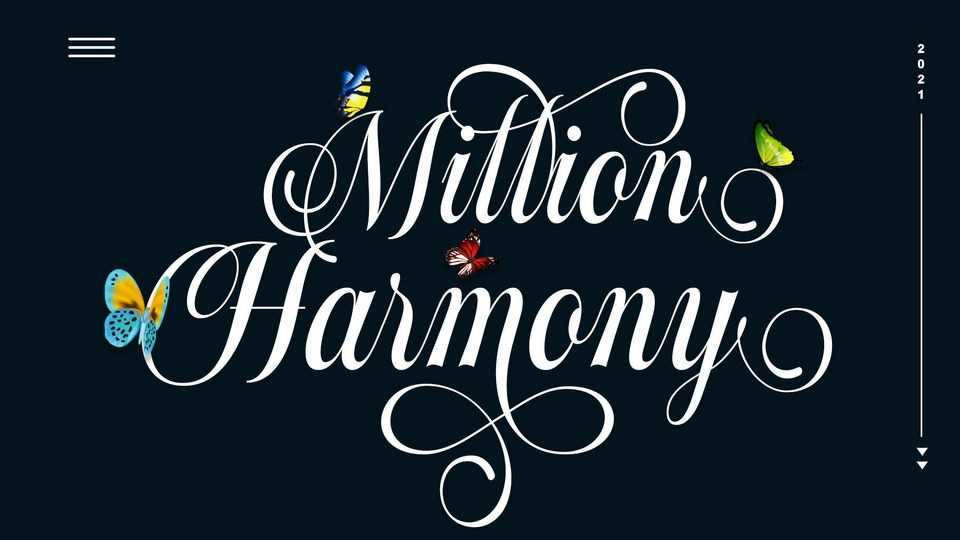
Million Harmony Script Font › Fontesk – Download Grátis
Download Million Harmony font, an elegant and charming calligraphy script typeface that has beautiful shapes in every letter. The Million Harmony font is perfect for as logos and branding, wedding designs, social media and more.
Designer: Handpik Design